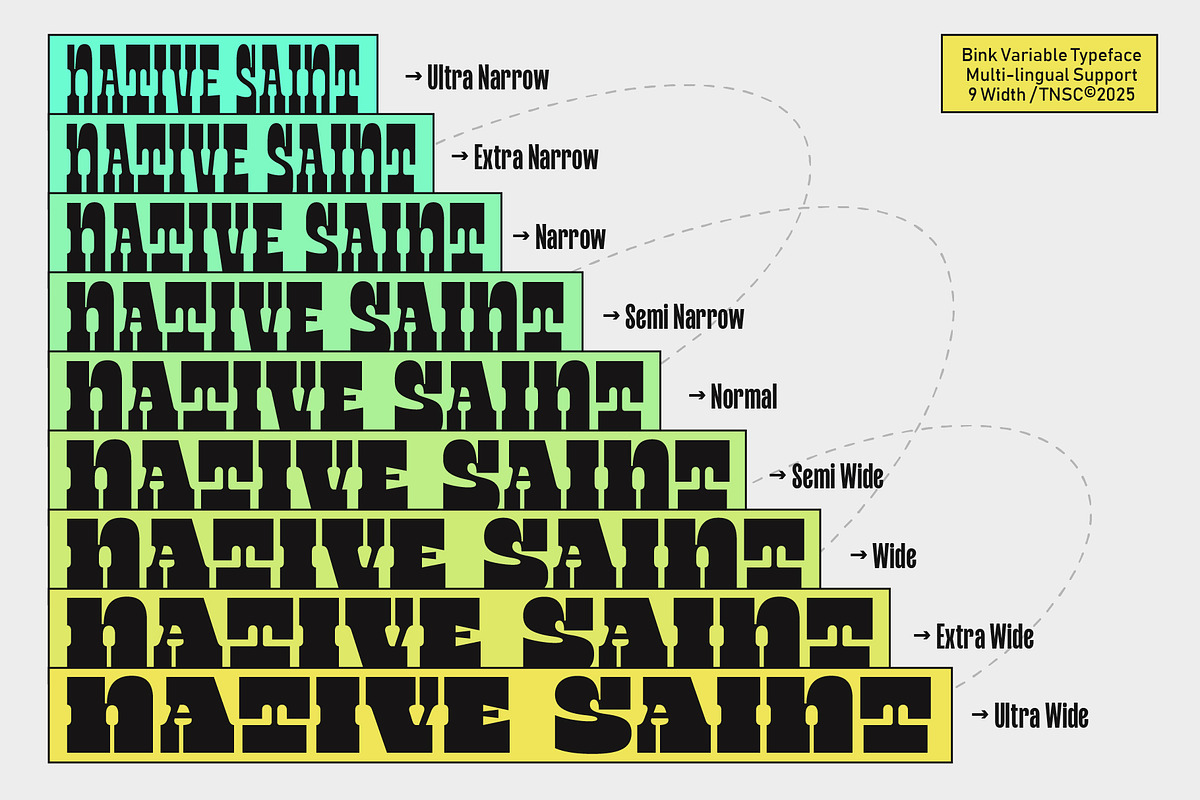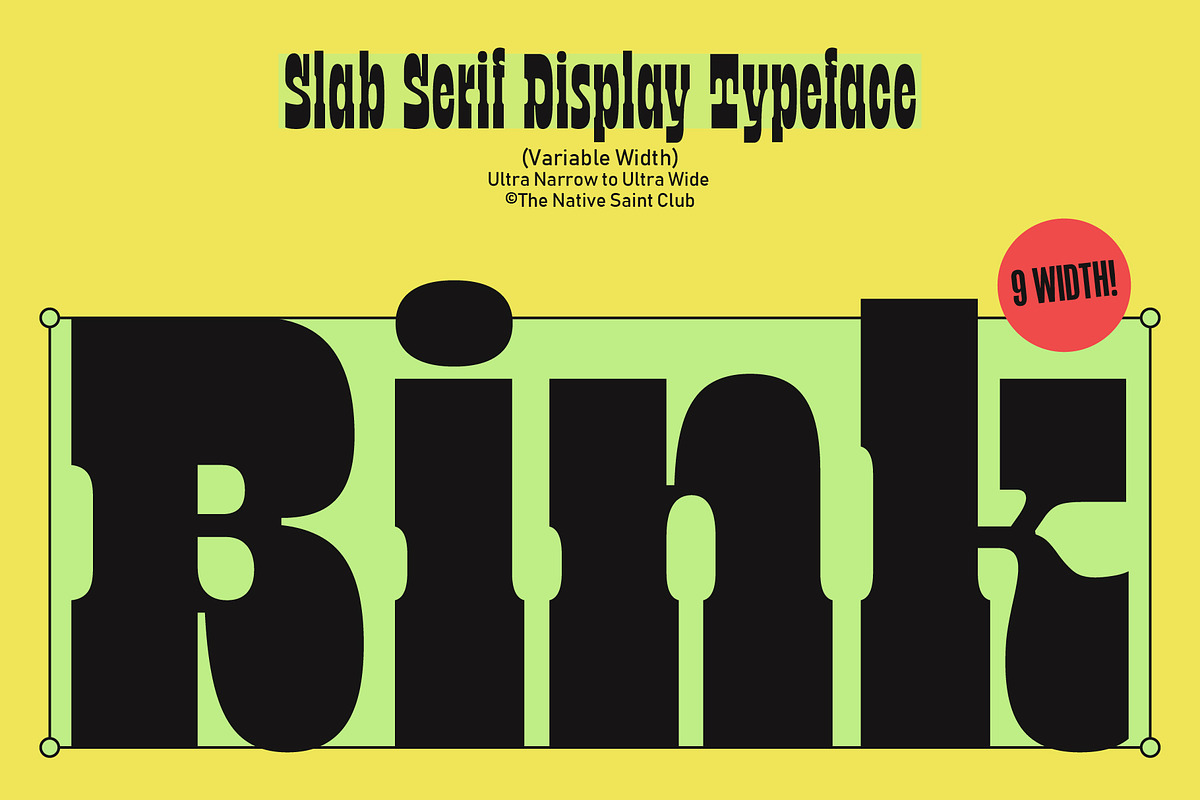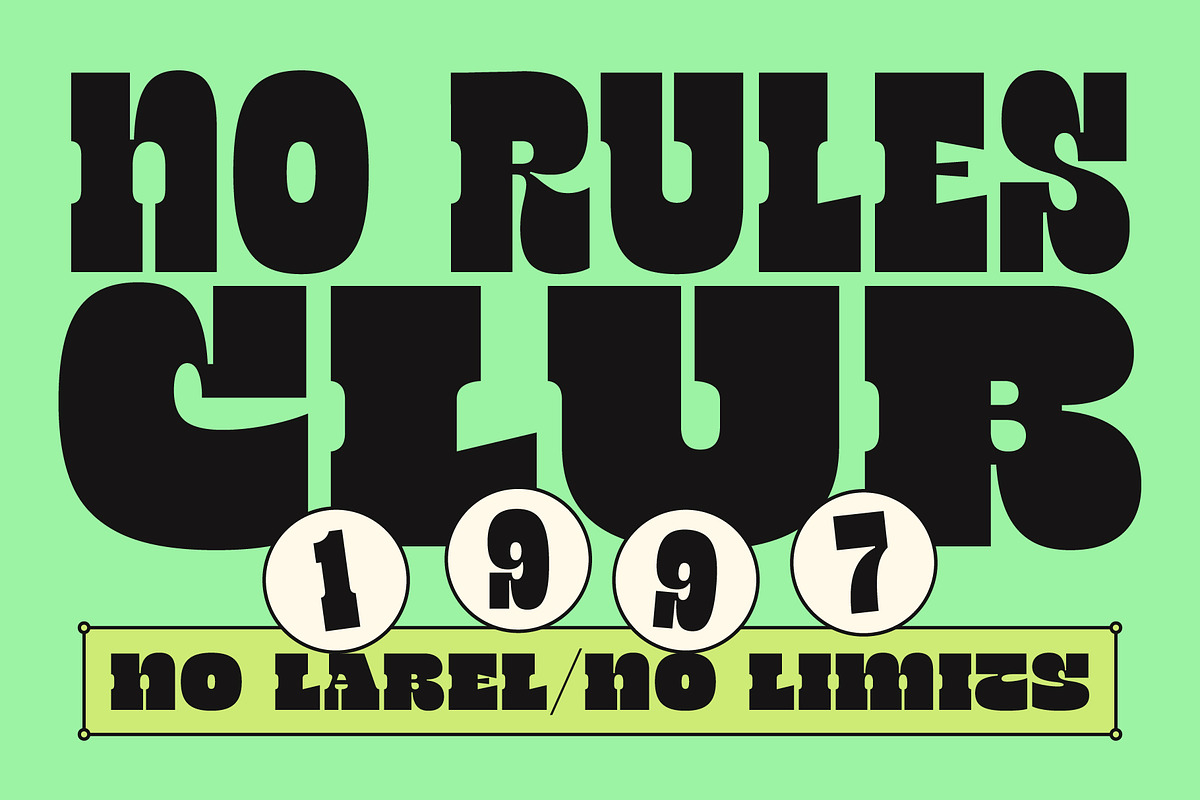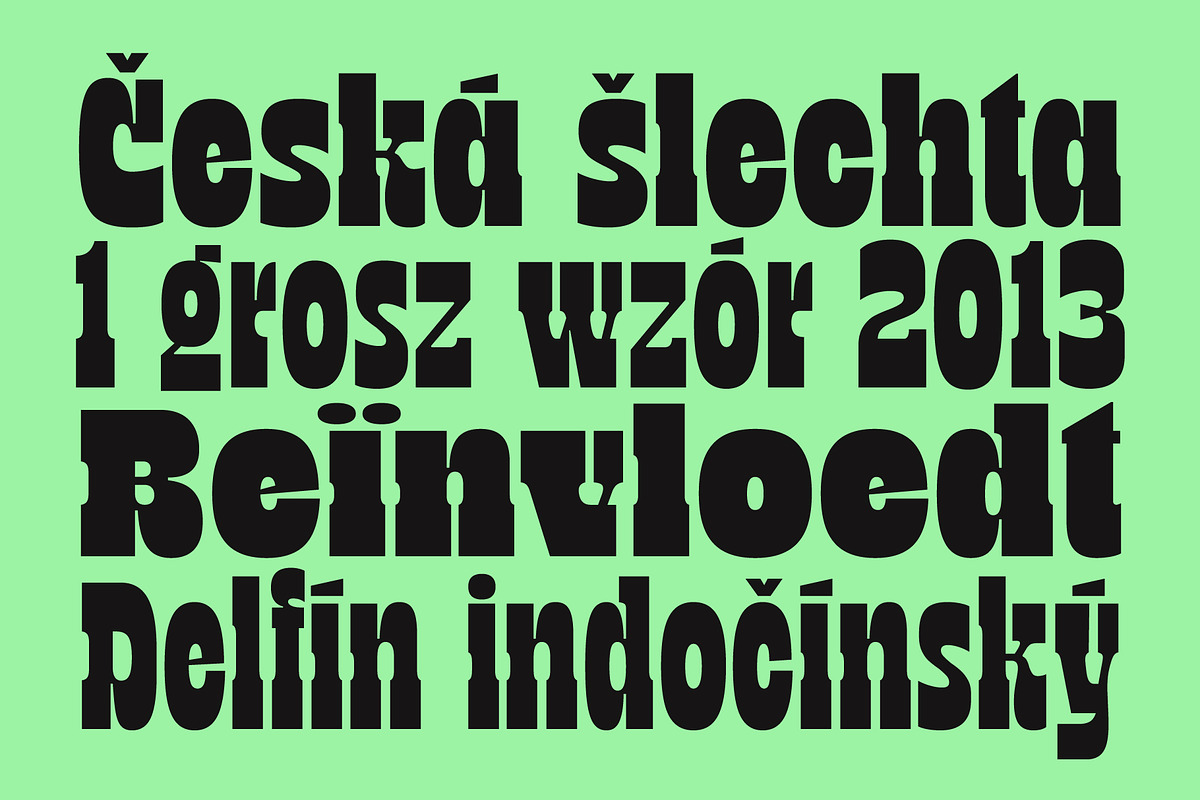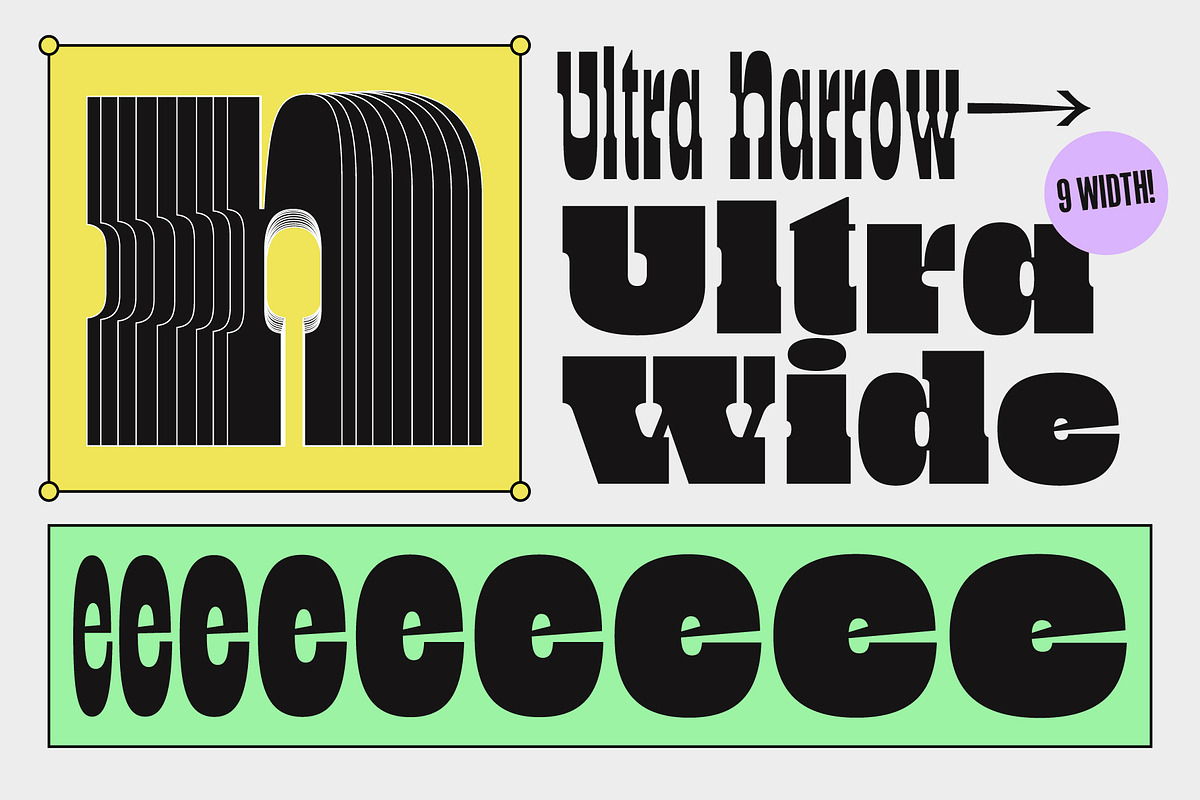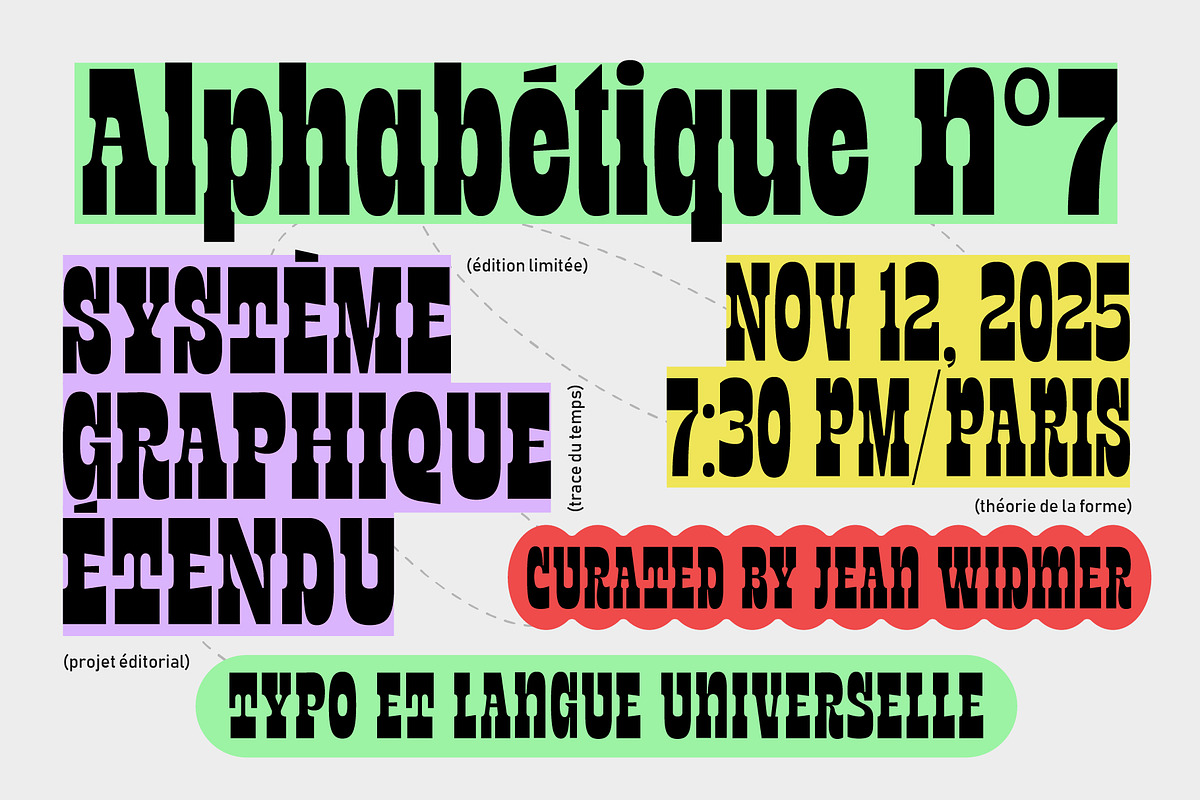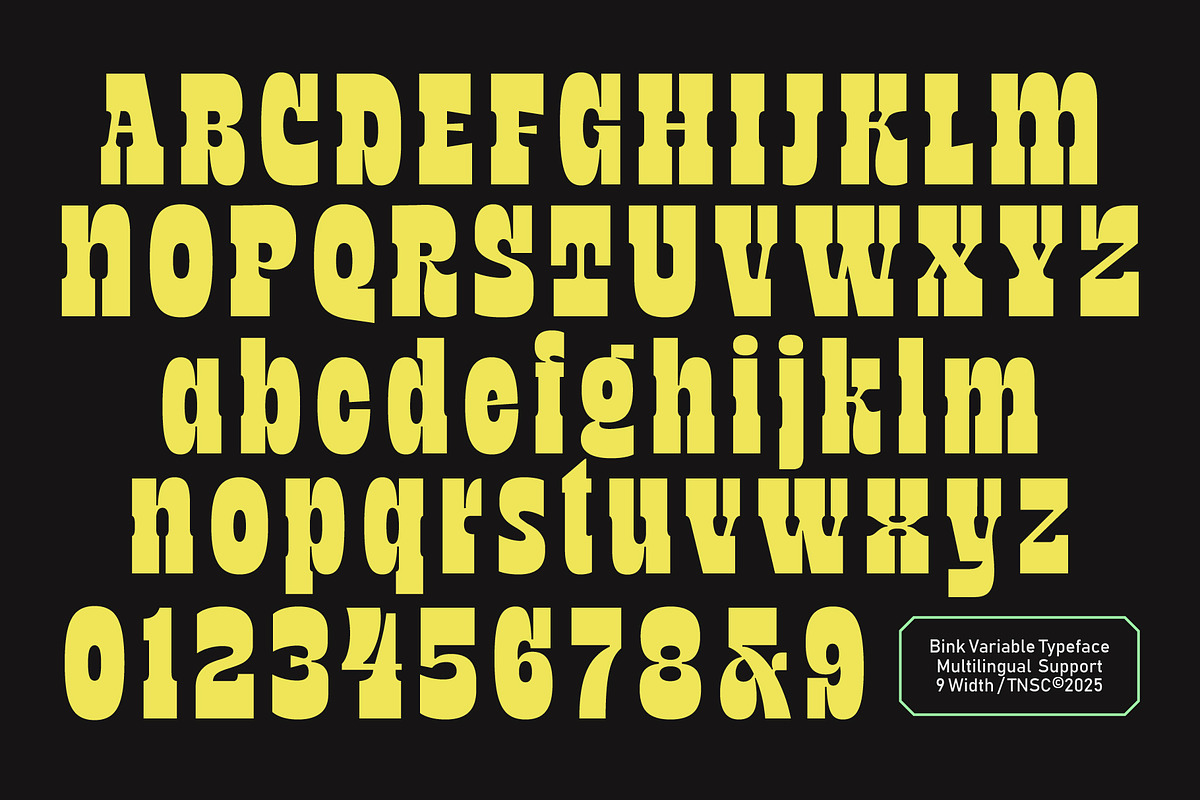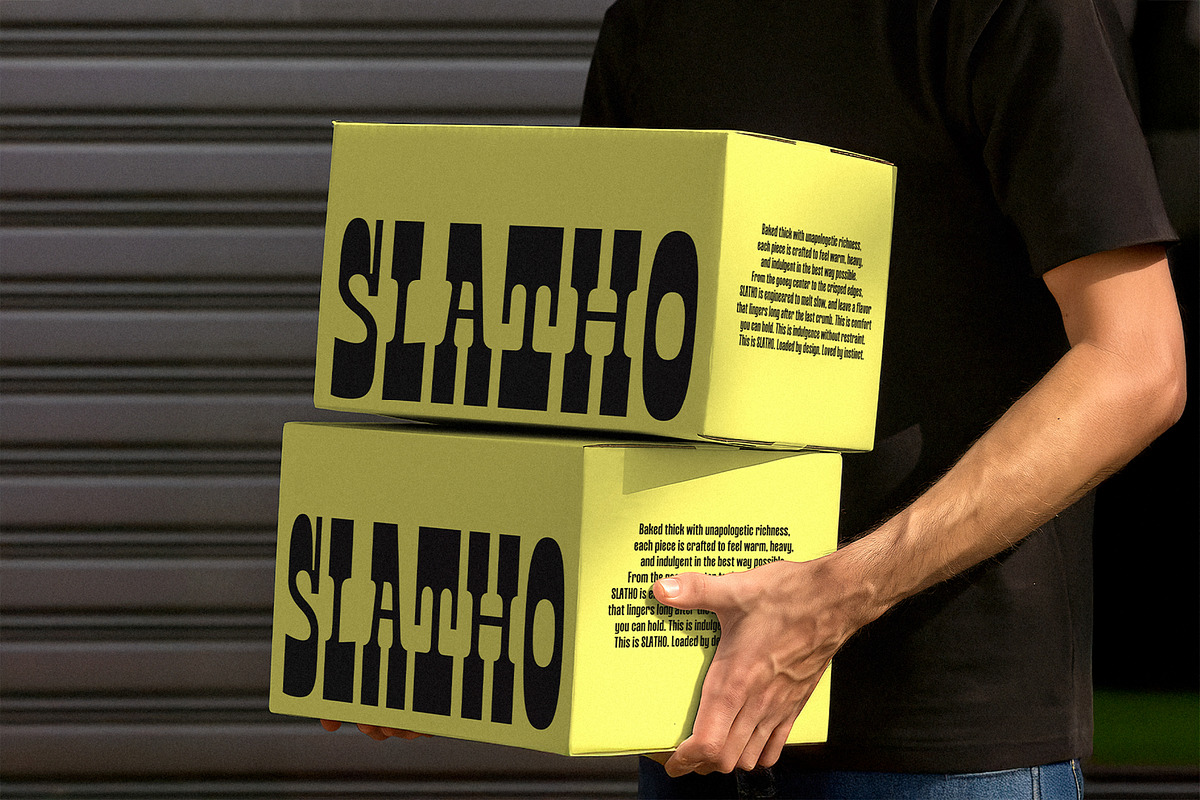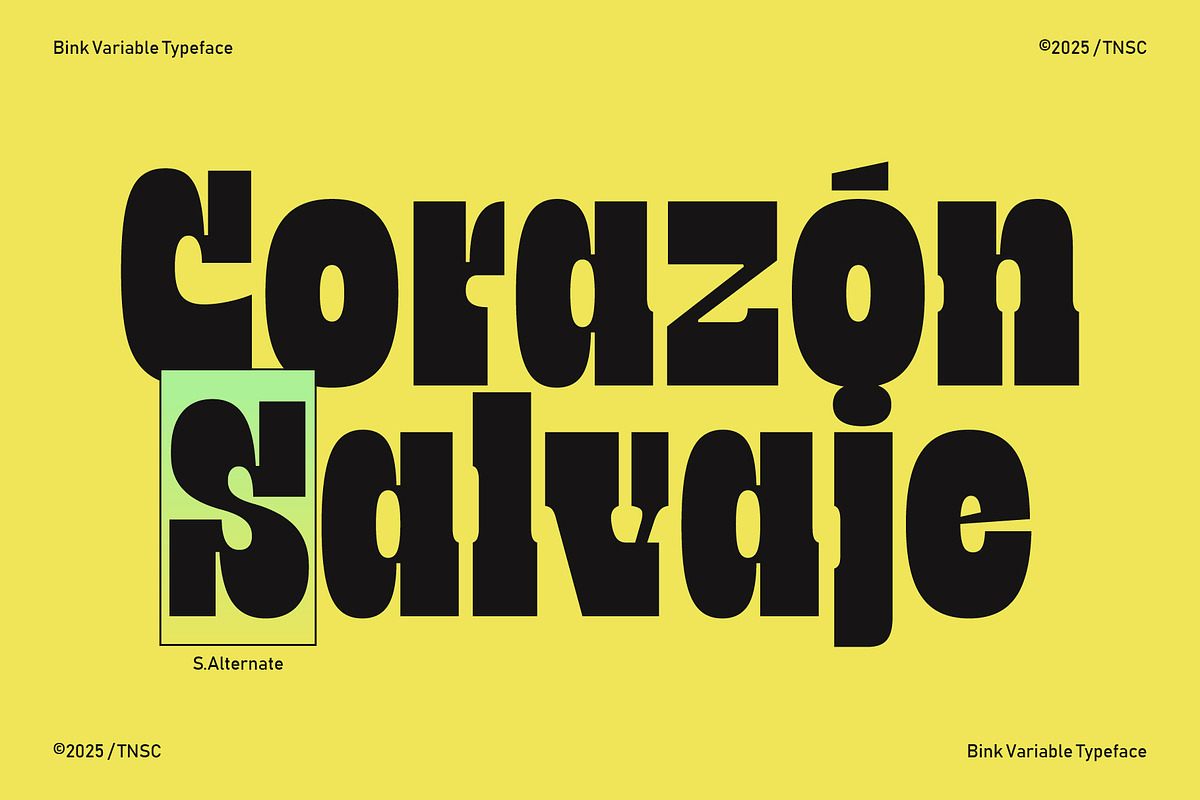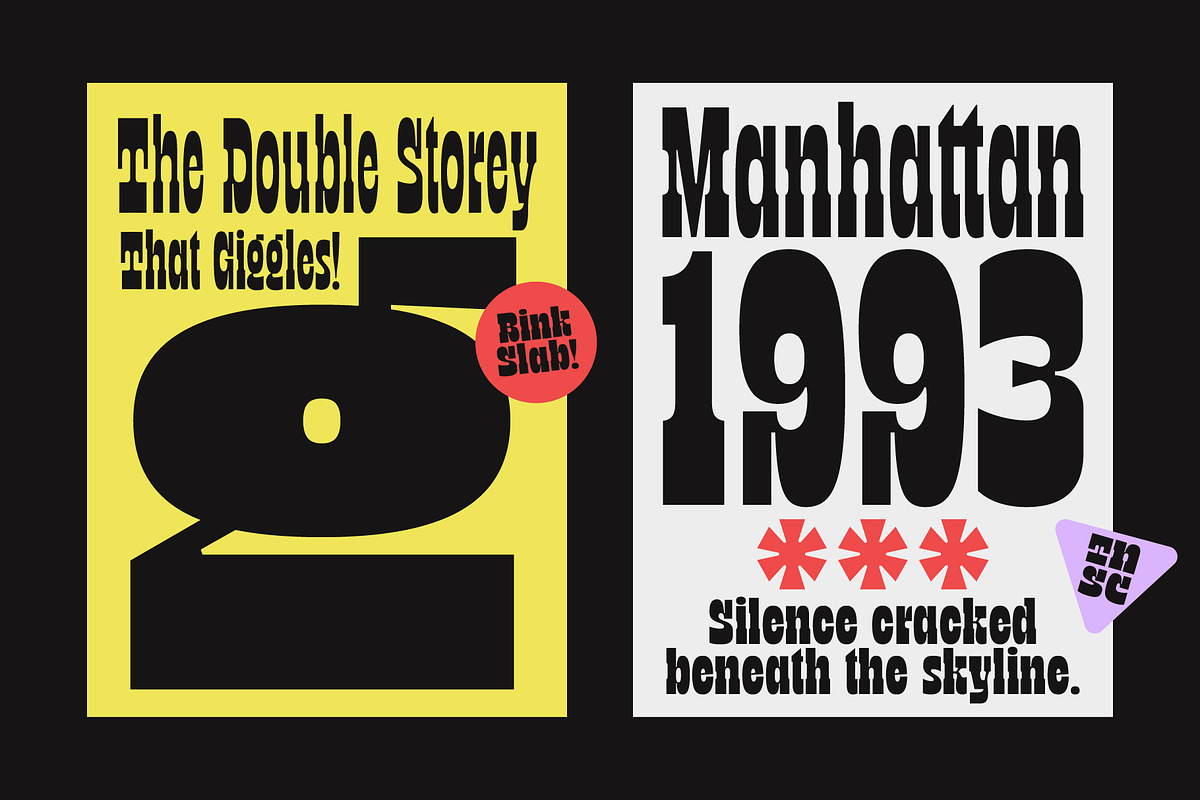
TNSC Bink - Slab Serif Display
TNSC Bink is a slab serif display font with bold and simple letterforms. The font family includes Ultra Narrow, Extra Narrow, Semi Narrow, Normal, Semi Wide, Wide, Extra Wide and Ultra Wide, allowing it to fit different layout needs while keeping a consistent structure. Suitable for titles, posters, branding, and other design work that requires a clear and steady display style.